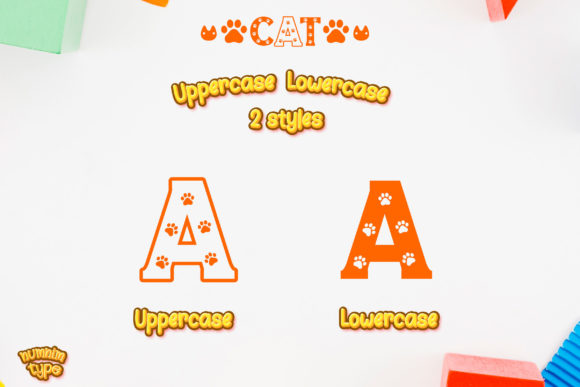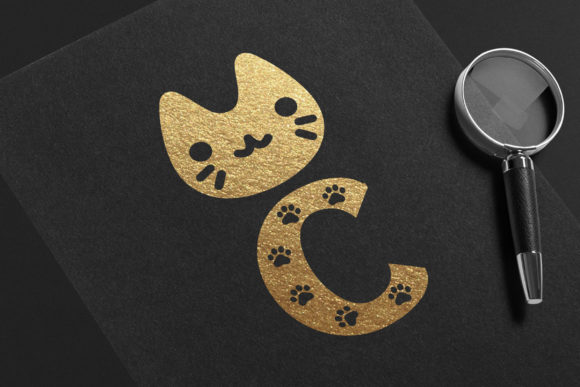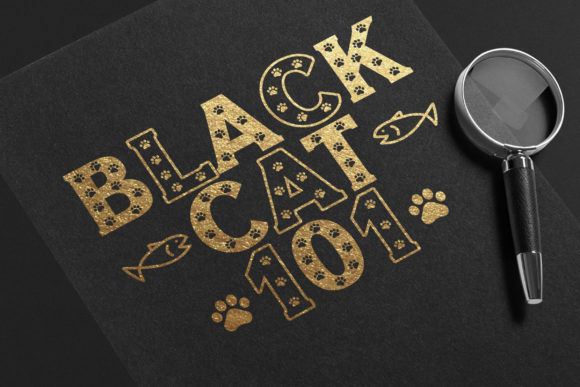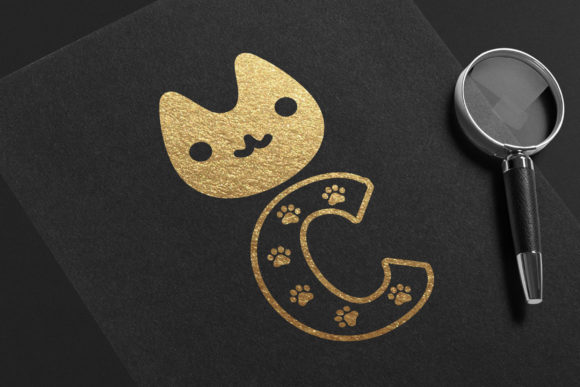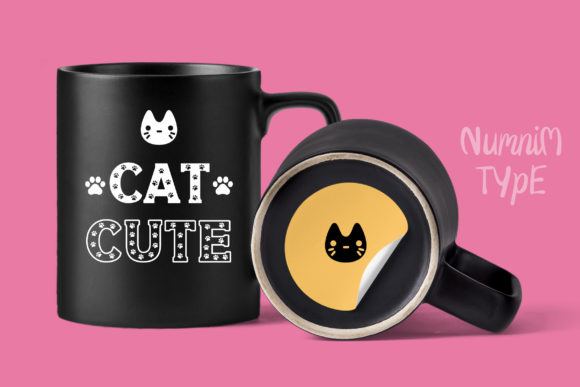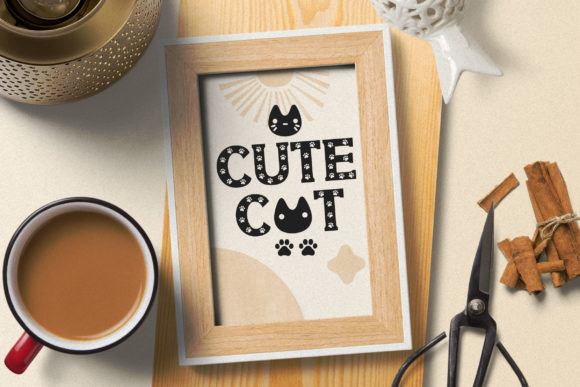
The Purrfect Font: A Deep Dive into Cat Font
I’ll never forget the time I was working on a project for a children’s book, and I just couldn’t find the right font to match the playful tone of the story. The client wanted something that was both fun and friendly, but not too over-the-top. That’s when I stumbled upon Cat Font, and let me tell you, it was love at first sight! 😍
Cat Font is a cool and friendly display font that’s perfect for cartoon-related designs, children’s games, or just any creation that requires a lovely touch. In this article, I’ll be sharing my honest review of Cat Font, a practical guide on how to use it, and some similar fonts you might want to check out.
My Honest Review of Cat Font
- ✨ Unique and playful design: Cat Font has a distinctive look that’s both fun and sophisticated.
- ✅ Highly legible: Despite its playful nature, Cat Font is surprisingly easy to read, even at smaller sizes.
- 💕 Versatile: This font can be used for a wide range of projects, from children’s books to posters and social media graphics.
While Cat Font is an amazing font, there are a few things to keep in mind:
- 🤔 Limited use for body text: While Cat Font is great for headlines and titles, it’s not the best choice for longer blocks of text.
- ⚠️ Some letters may require manual kerning: As with any font, you may need to adjust the kerning for certain letter combinations to get the best results.
One of the best things about Cat Font is its support for OpenType features and glyphs. Here are a few tips for getting the most out of these features:
- Stylistic alternates: Cat Font comes with a range of stylistic alternates that can add a touch of personality to your text.
- Glyphs: The font includes a range of glyphs, from simple shapes to more complex illustrations.
The Designer Inspiration Behind Cat Font
While the true story behind Cat Font may be a mystery, it’s easy to imagine that the designer was inspired by the playfulness and cuteness of cats. Perhaps they wanted to create a font that would bring a smile to people’s faces and add a touch of whimsy to their designs.
Q: What is Cat Font best used for?
A: Cat Font is perfect for cartoon-related designs, children’s games, or just any creation that requires a lovely touch.
Q: Is Cat Font easy to read?
A: Yes, despite its playful nature, Cat Font is surprisingly easy to read, even at smaller sizes.